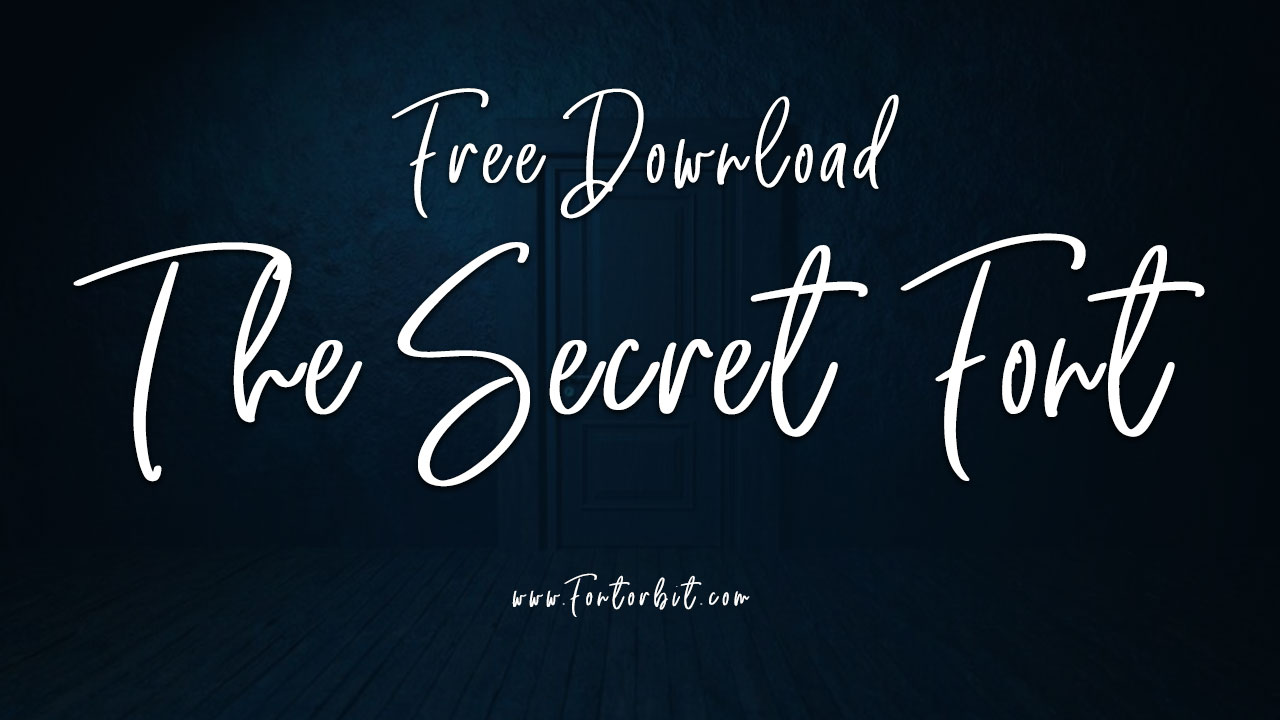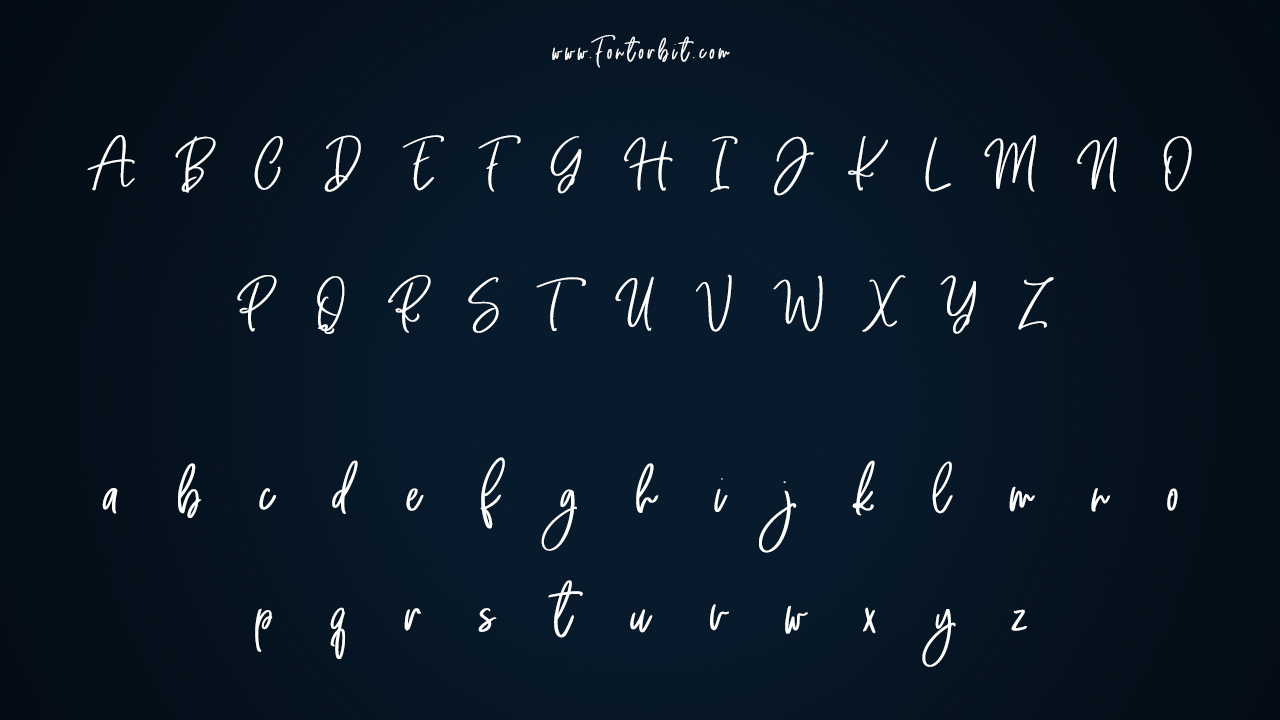
Introducing The Secret Font, an elegant handwritten font created by VladCristea. This font was first published on Dec 26, 2018, and was designed to capture the beauty of hand-lettered typography.
It belongs to the script font family and offers a modern and sophisticated feel, perfect for adding a personal touch to your designs.
The Secret Font family is a beautiful, natural-looking font that mimics the effortless flow of real handwriting. With its graceful lines and delicate flourishes, it is ideal for both professional and personal design projects. Here is what the font family includes:
a. The Secret Regular
| Style: | Handwritten |
Notable Uses Of ‘The Secret Font’
This font has been used in various designs due to its versatility and elegance. Some of the notable uses include:
- Wedding Invitations
- Branding and Logos
- Greeting Cards
The Secret Font is best suited for designs that require a personal and elegant touch. This includes:
- Luxury branding
- Invitation designs
- Digital content
- Print media
The Secret Font is a stunning addition to any designer’s toolkit. Its flowing style and personal touch make it versatile for various design projects, whether for print, digital, or branding purposes.
3.Are There Any Alternates Or Glyphs Available?
Yes, The Secret Font includes alternates and swashes for added design flexibility.
5.What Type Of Font Is The Secret Script?
It is a handwritten script font.